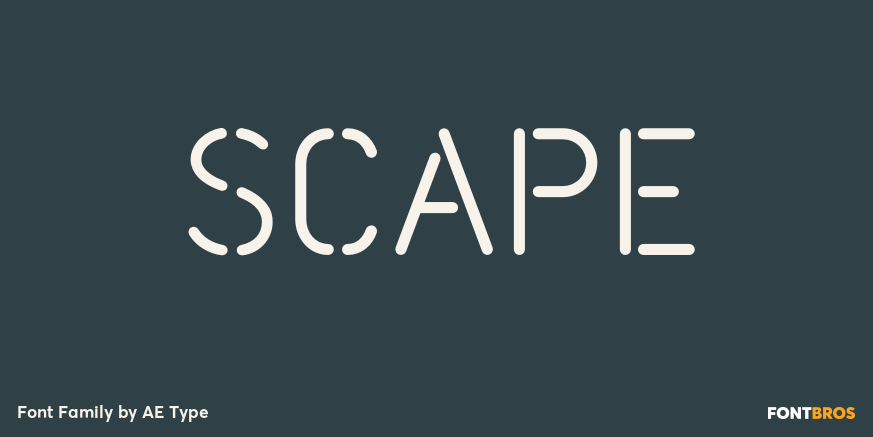
About Scape
Scape is a precisely drawn, contemporary stencil face built from a single weight rounded end stroke. The fine, linear rounded forms create a subtle contrast to the raw utilitarian nature of the stenciled characters.Extremely versatile, Scape is highly…